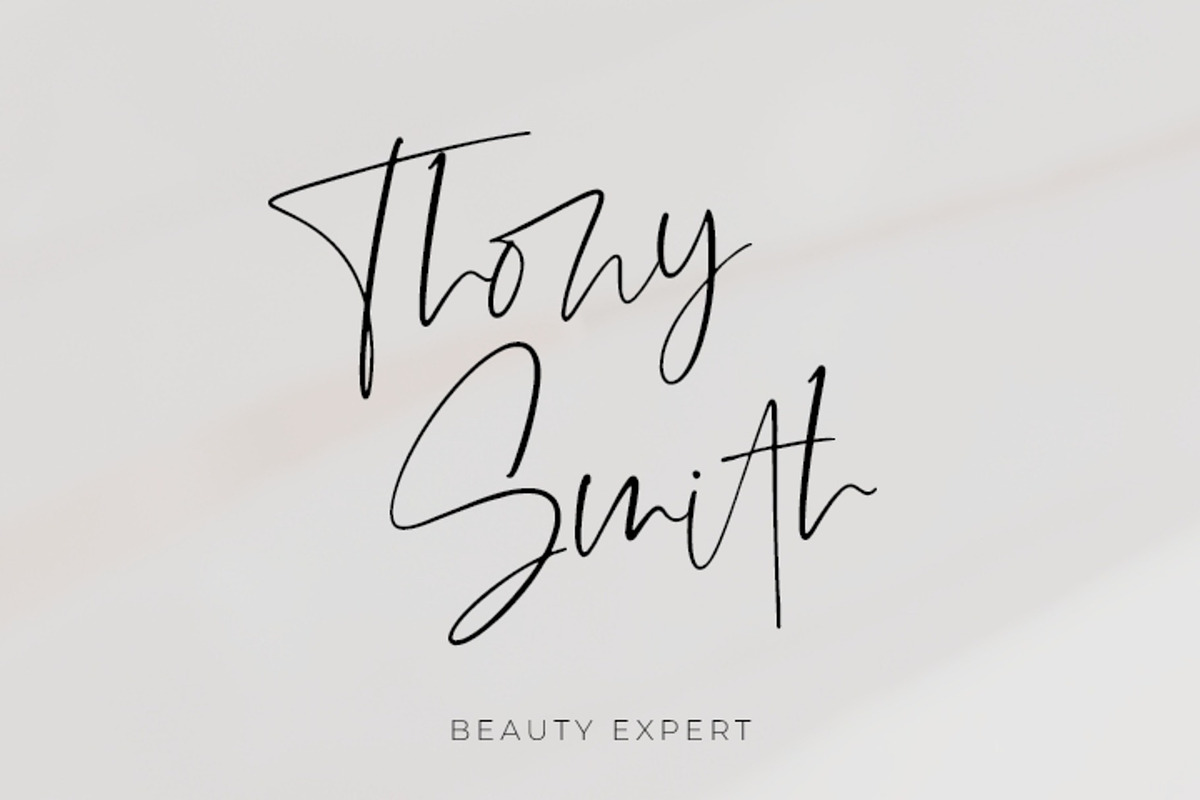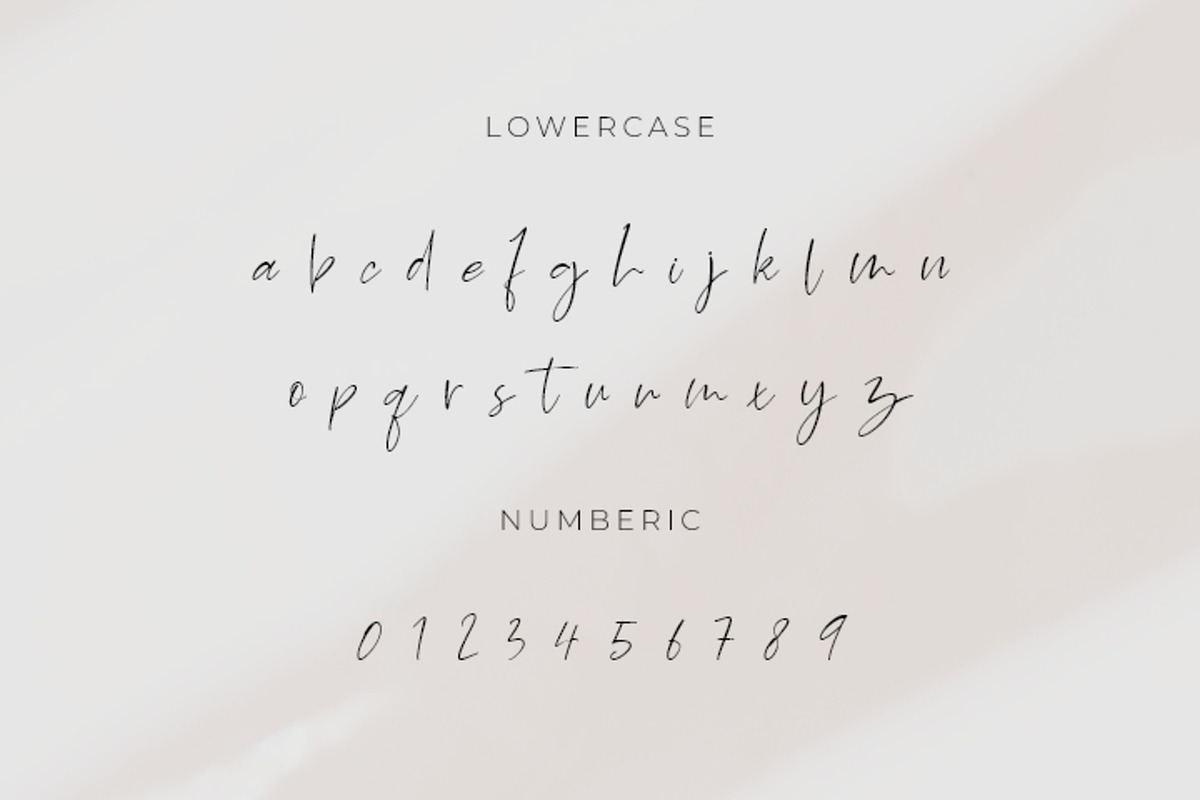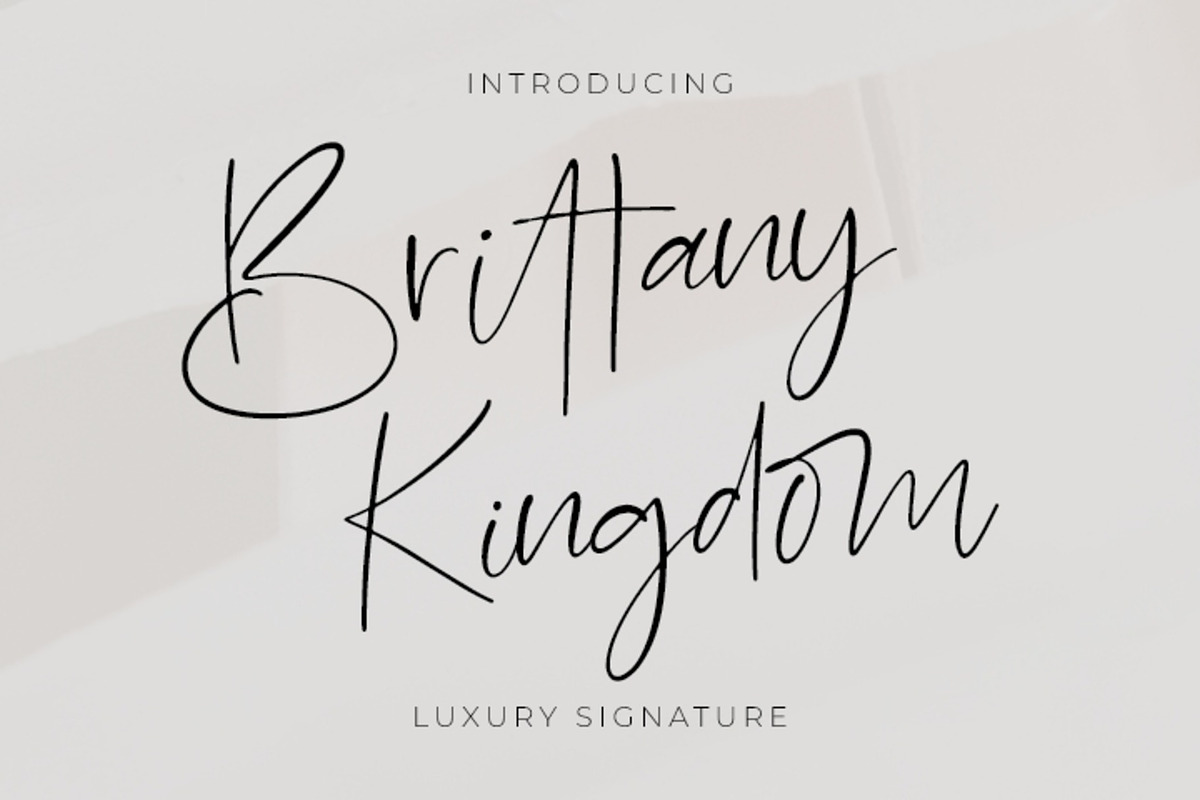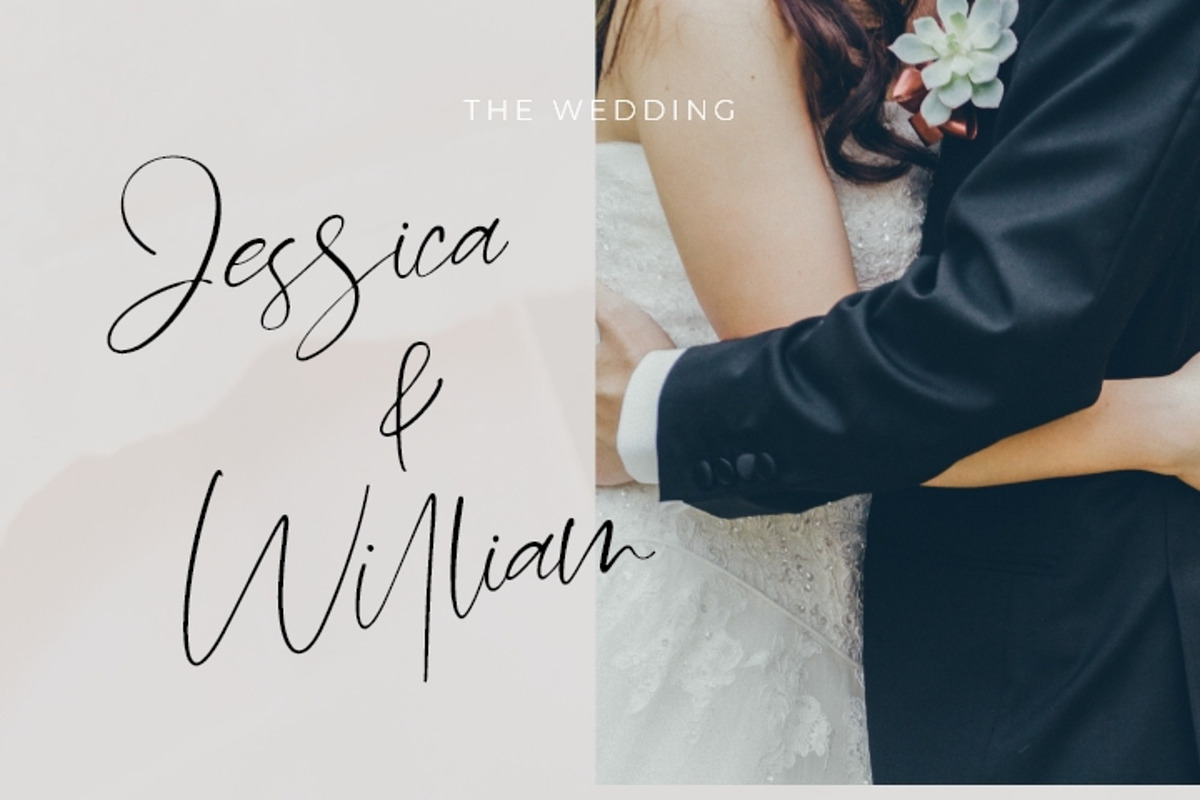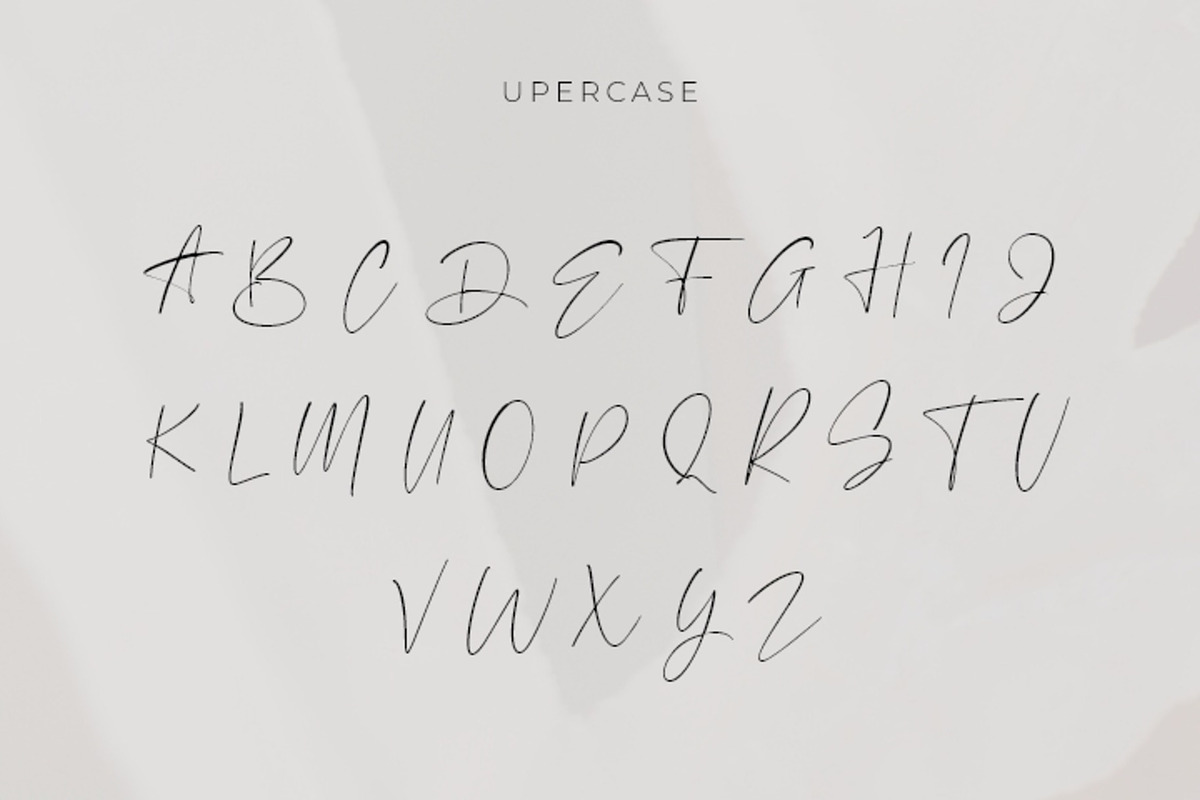
Brittany Kingdom: Charming Font
Brittany Kingdom: Charming Handwriting Font
Introducing Brittany Kingdom, a charming handwriting font that exudes elegance and grace. This font features beautifully flowing lines and a variety of unique character forms, perfect for invitations, branding, and more.
Charming Handwriting Style: Brittany Kingdom offers a naturally elegant handwriting style that adds charm and grace to any project.
Wide Range of Applications: Ideal for invitations, branding, logos, and more. Add a touch of charm to your designs with Brittany Kingdom.
Variety of Characters: Comes with a variety of unique character forms, adding depth and versatility to your design projects.
High Quality: Meticulously crafted to ensure high readability and beautiful aesthetics.